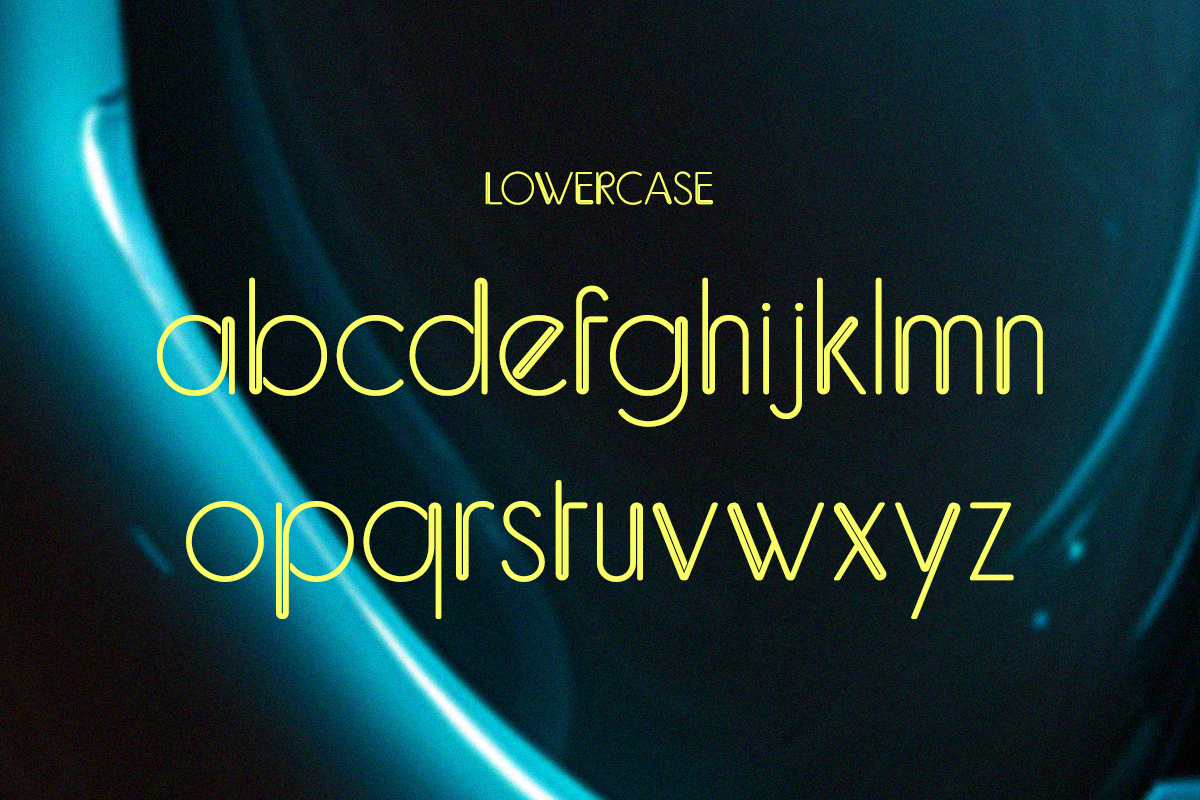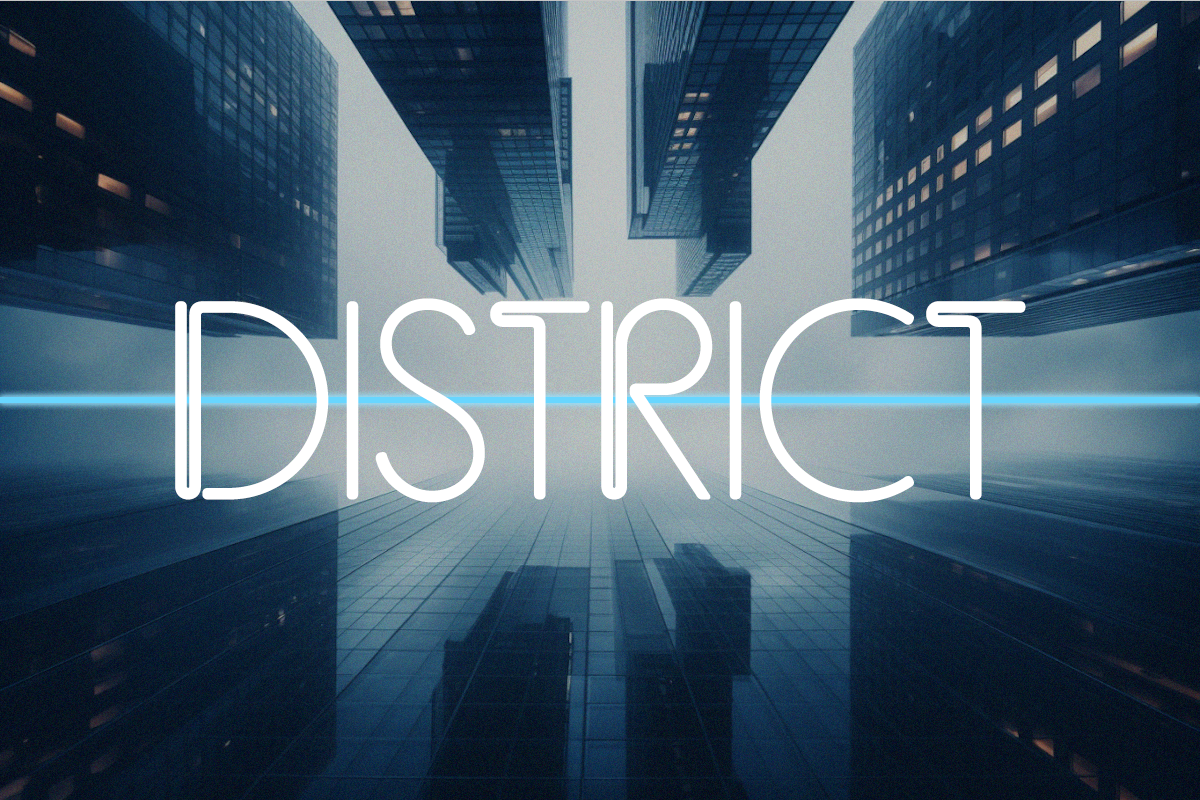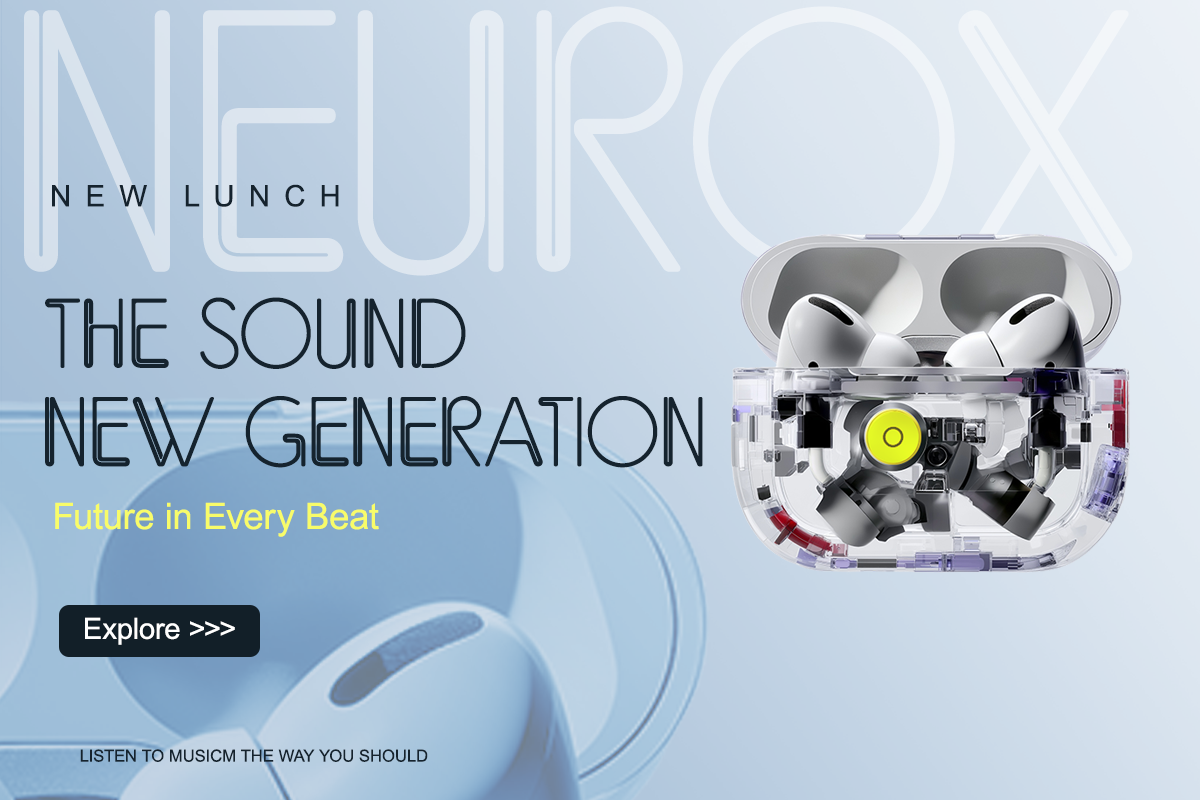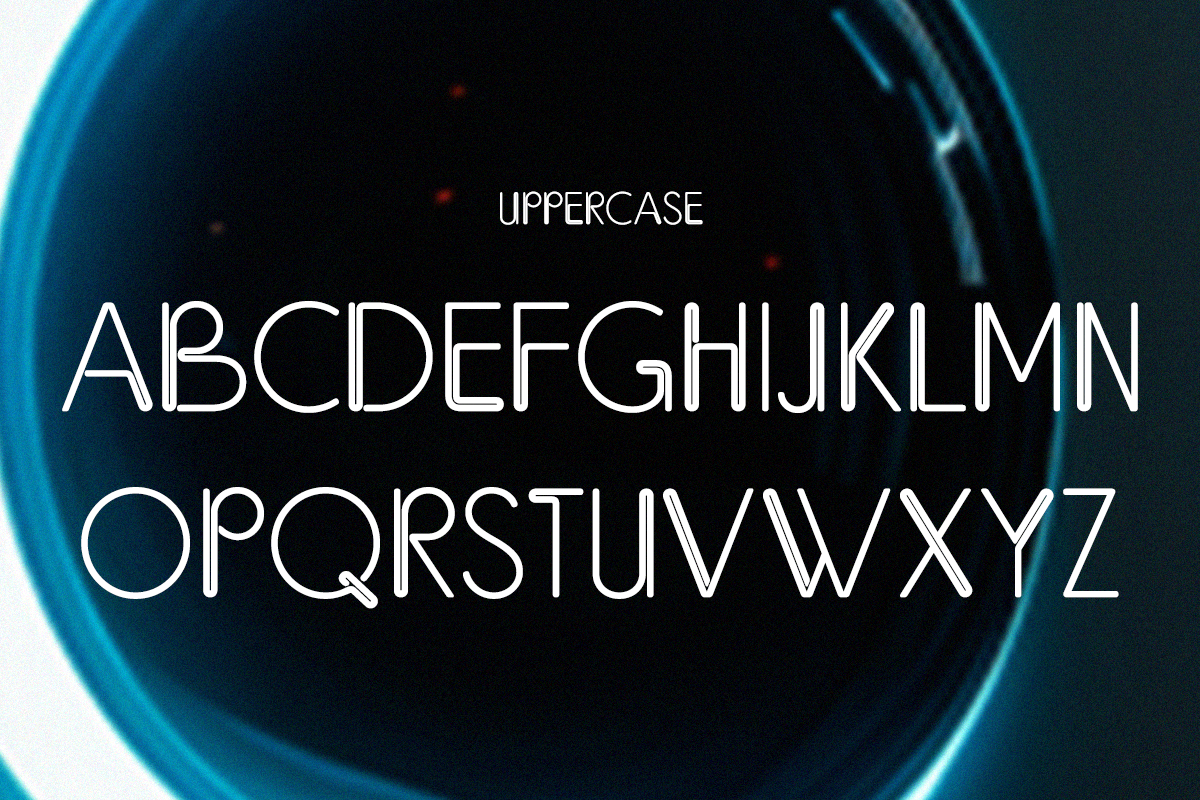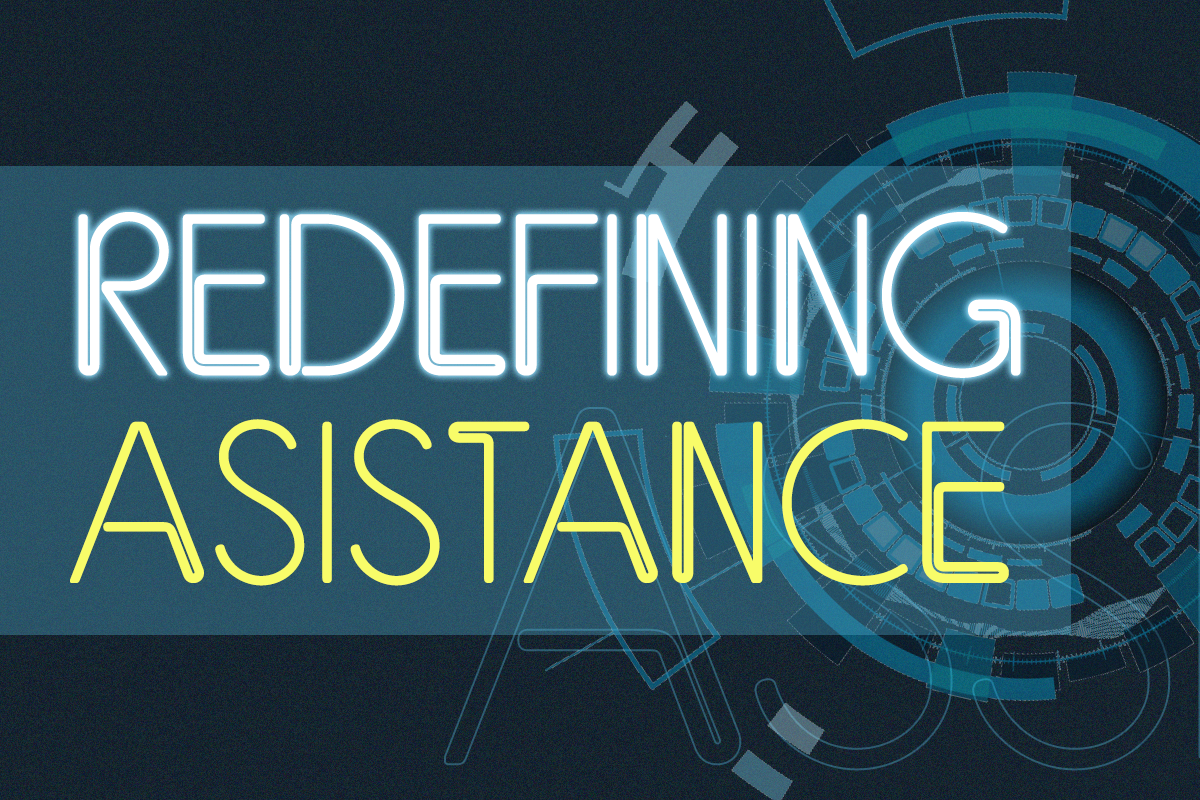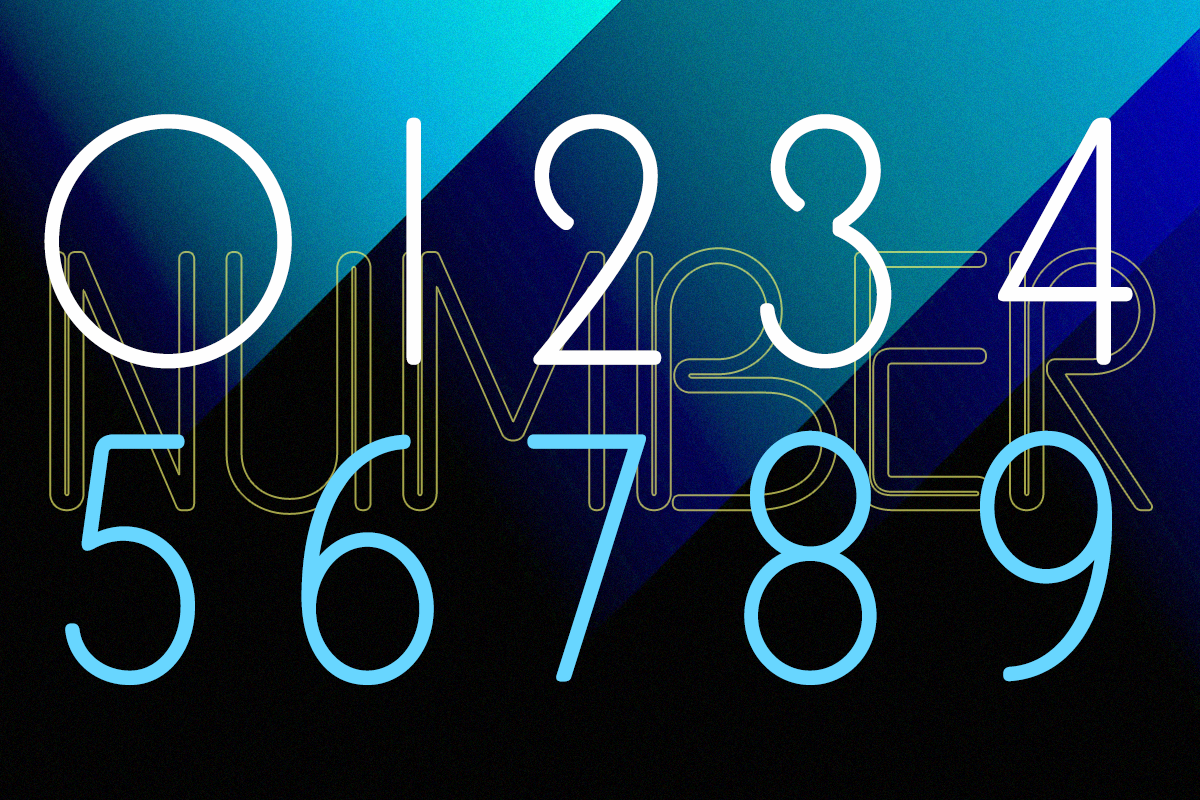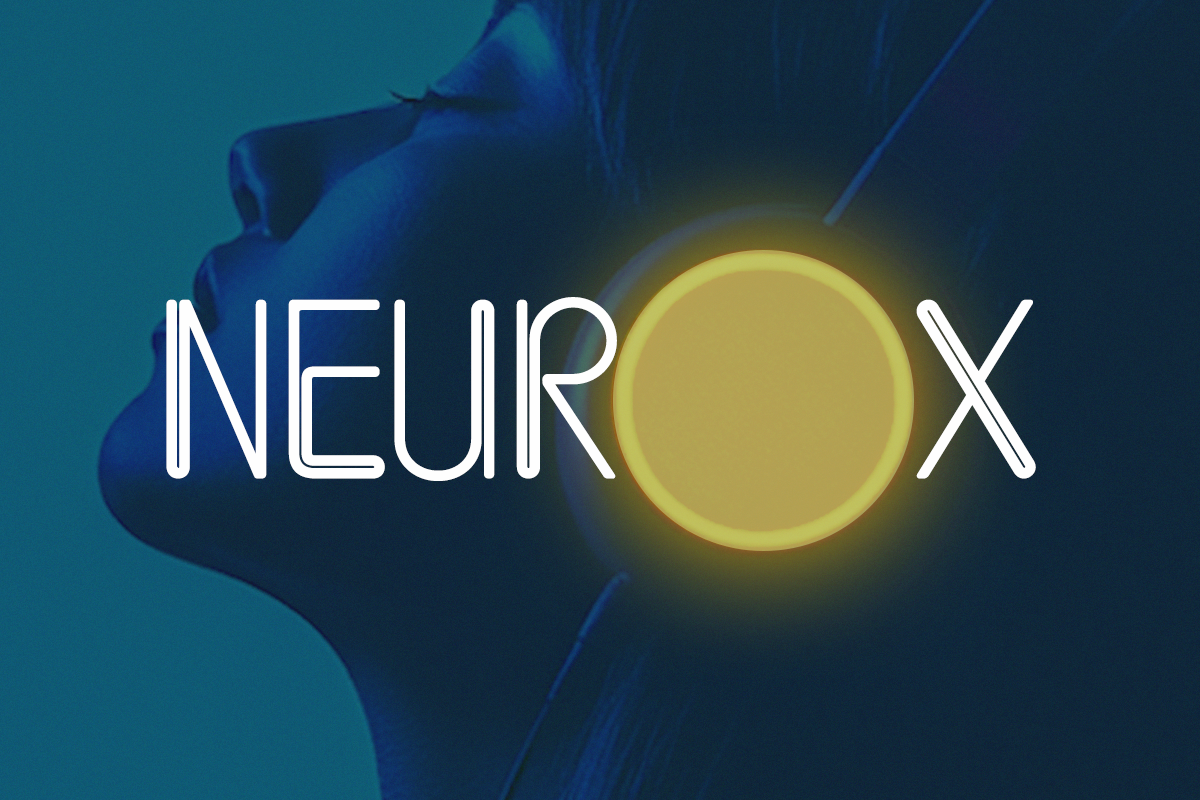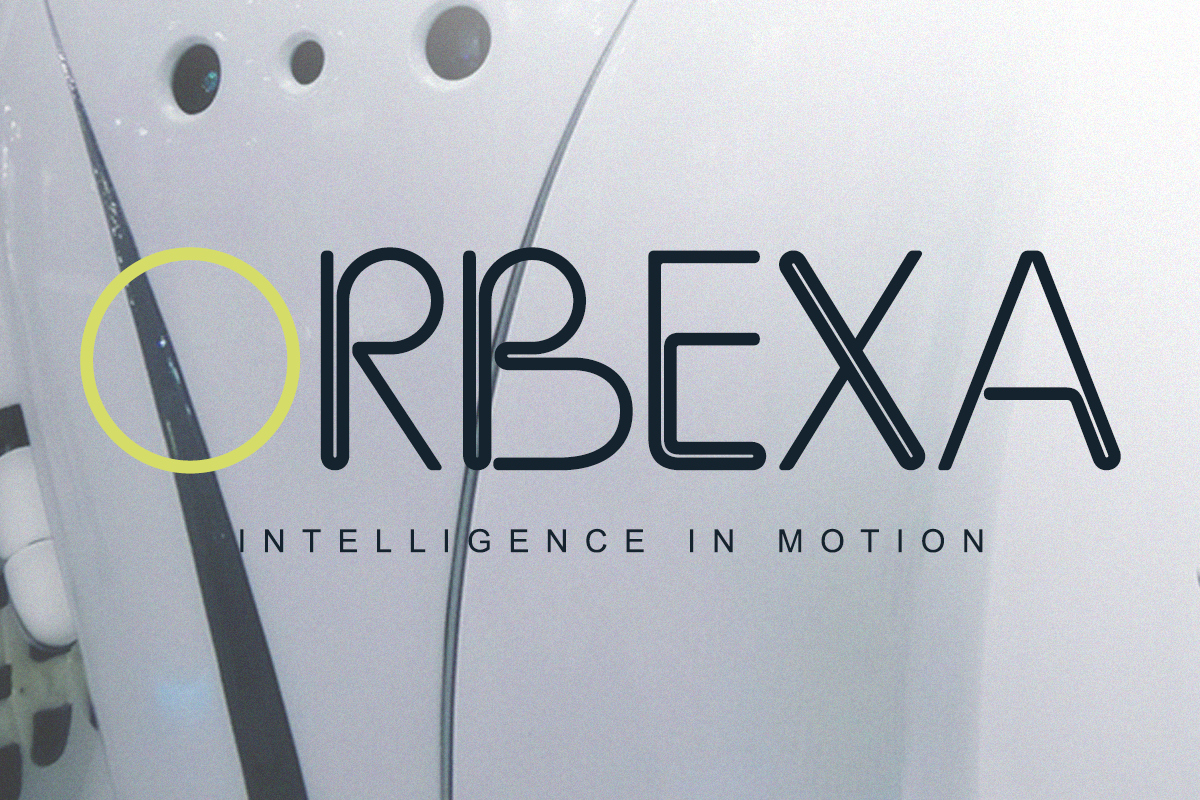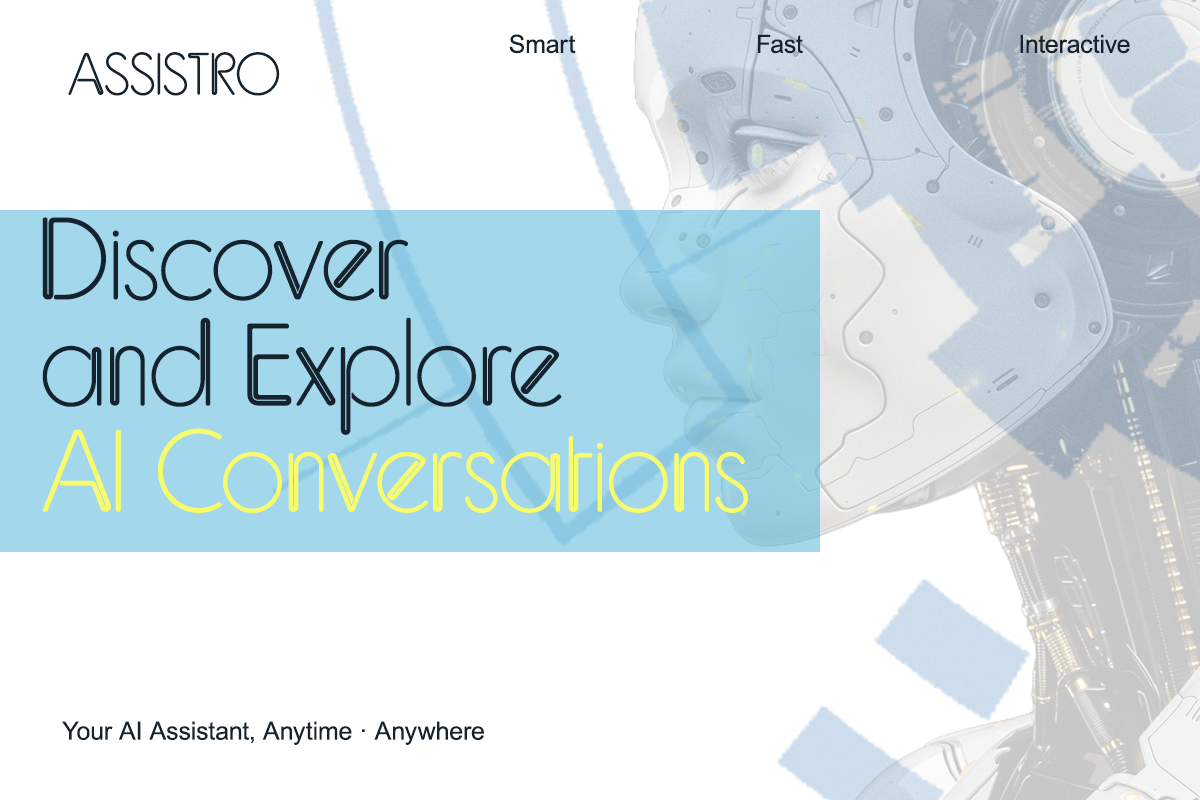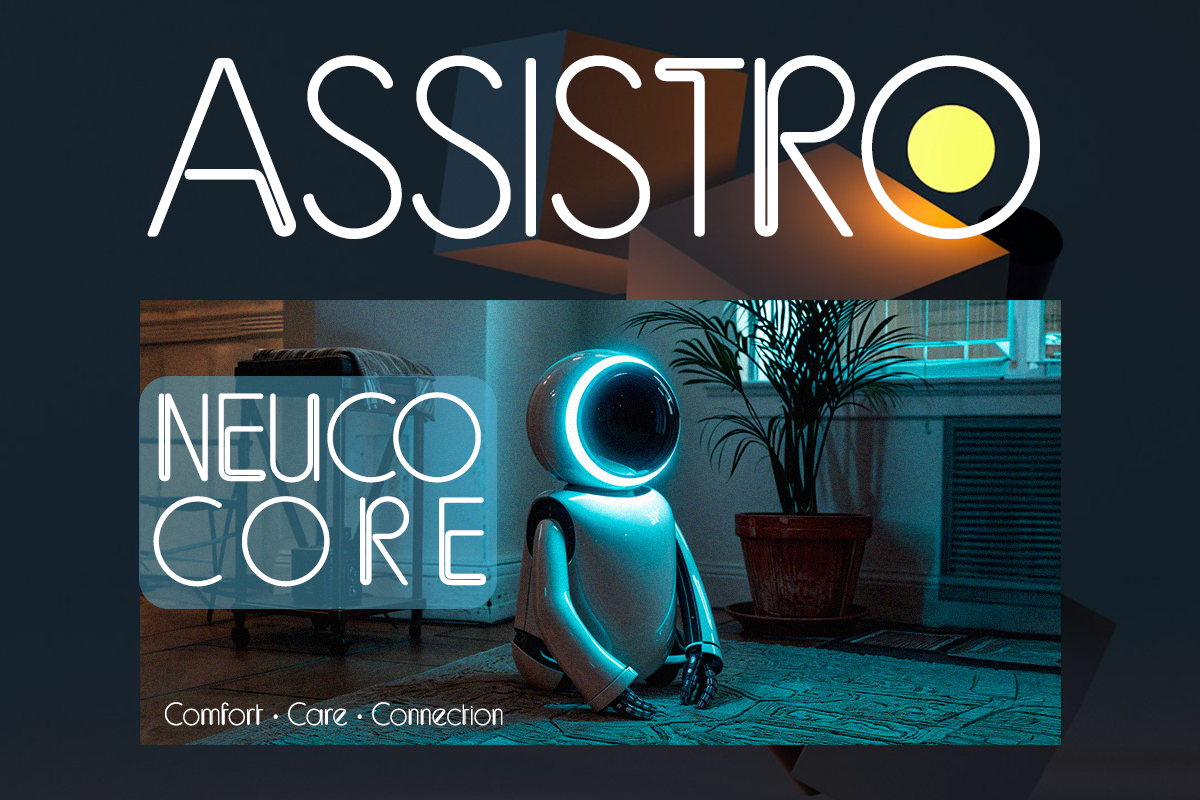
Space Matrix - Futuristic Display
Space Matrix is a futuristic display typeface inspired by neon grids and digital space design. Each letterform captures the essence of modern technology — clean, bold, and geometric. Perfect for sci-fi posters, gaming interfaces, movie titles, and tech company branding, Space Matrix defines modern innovation through typography.
- All Caps & Alternates
- High-tech Line Design
Perfect For: Tech branding, sci-fi titles, gaming visuals, digital posters, and web UI projects.